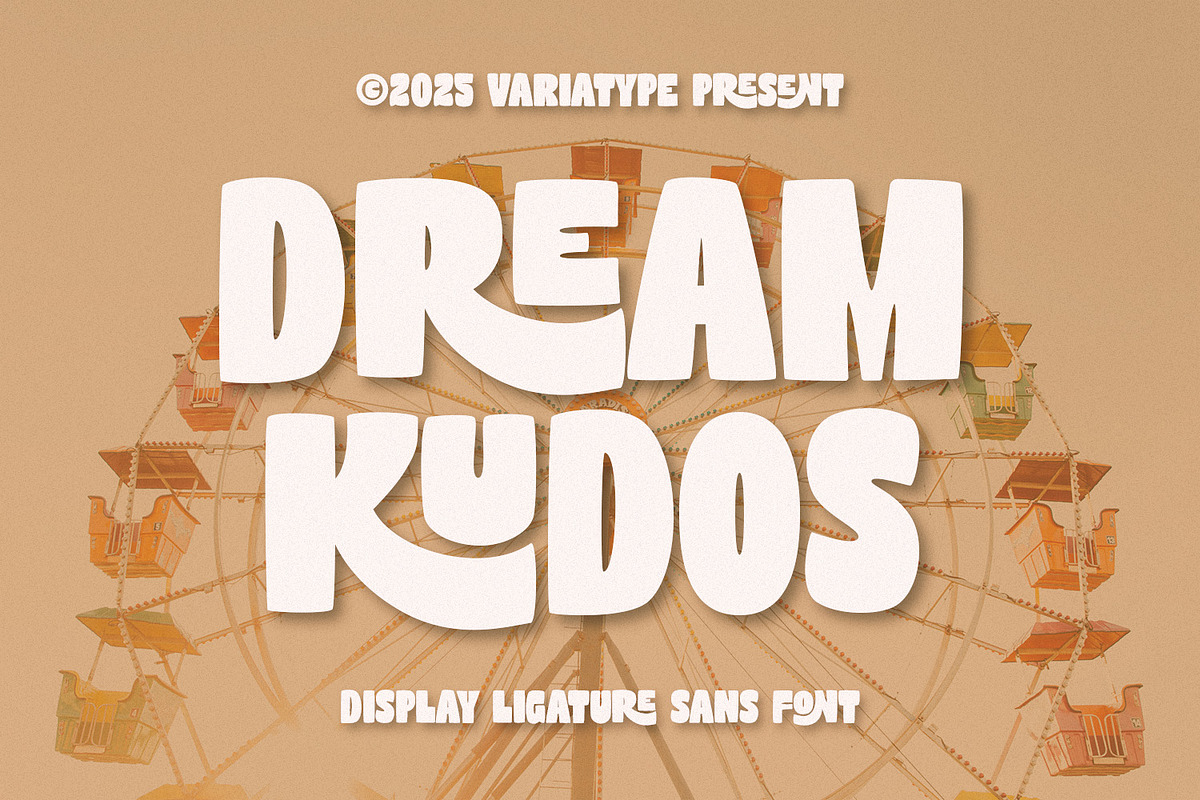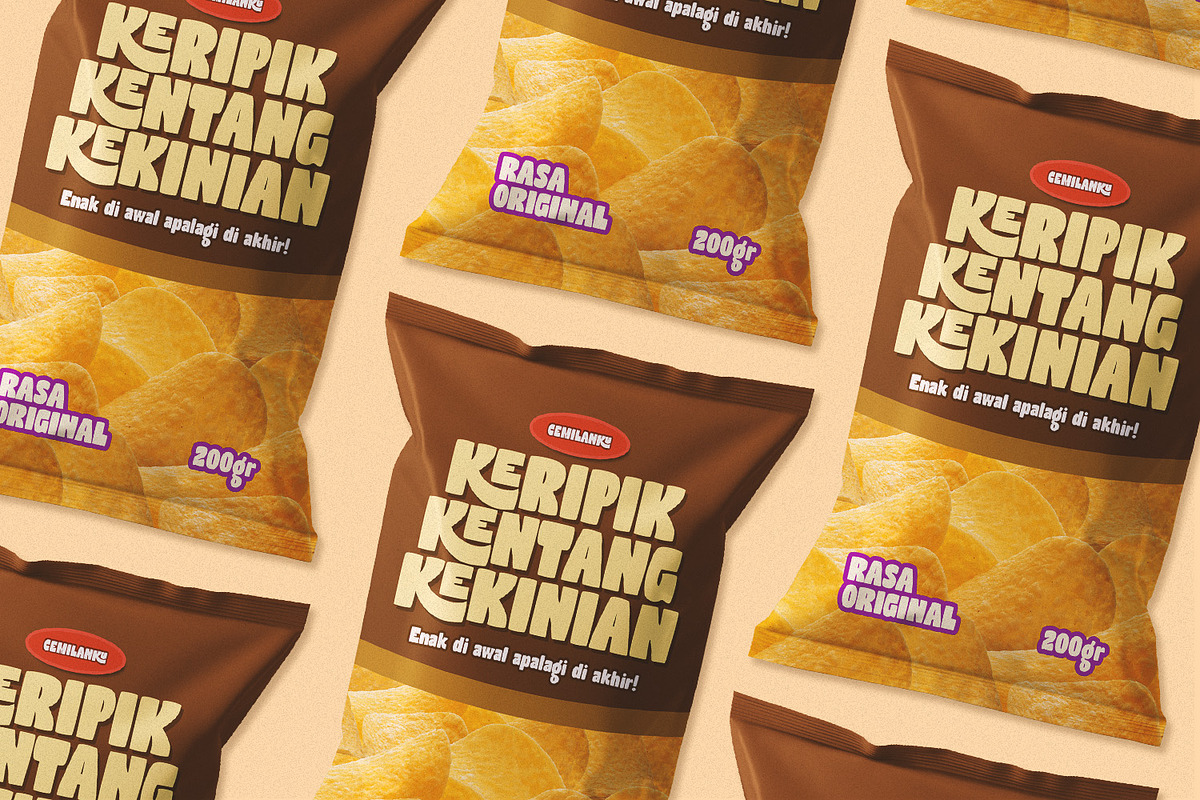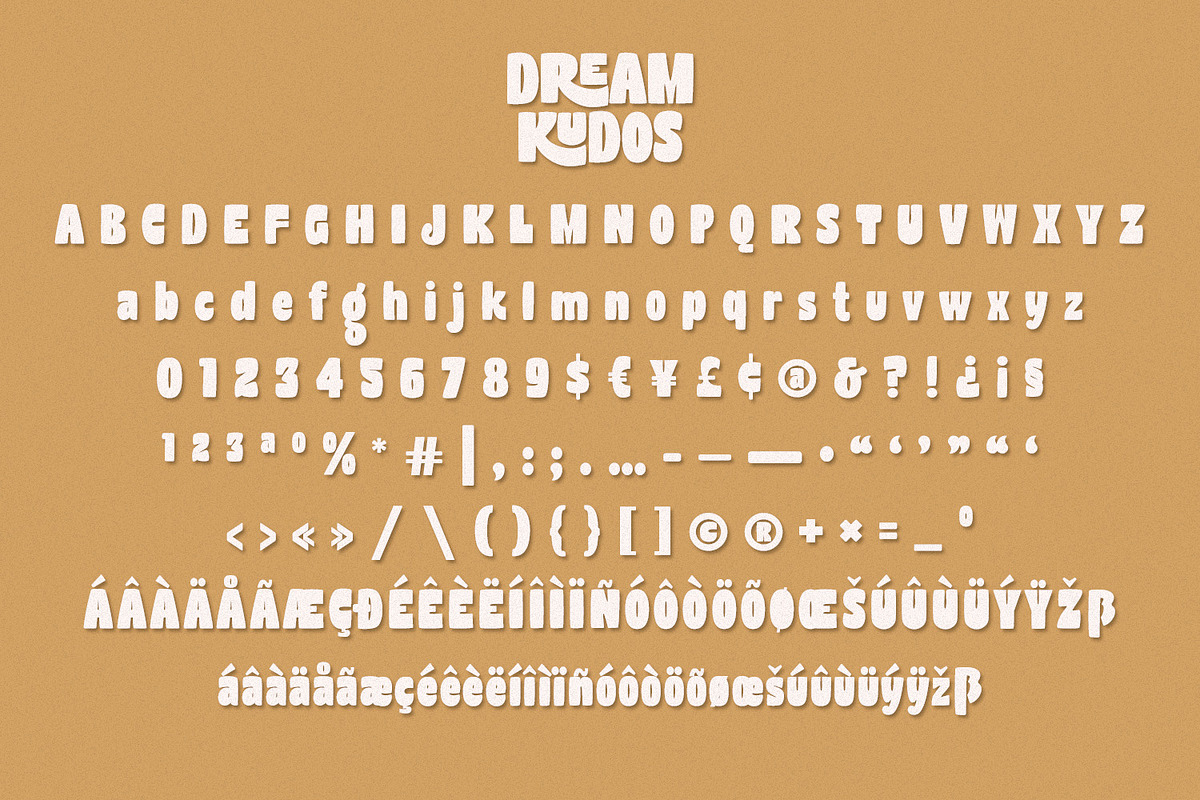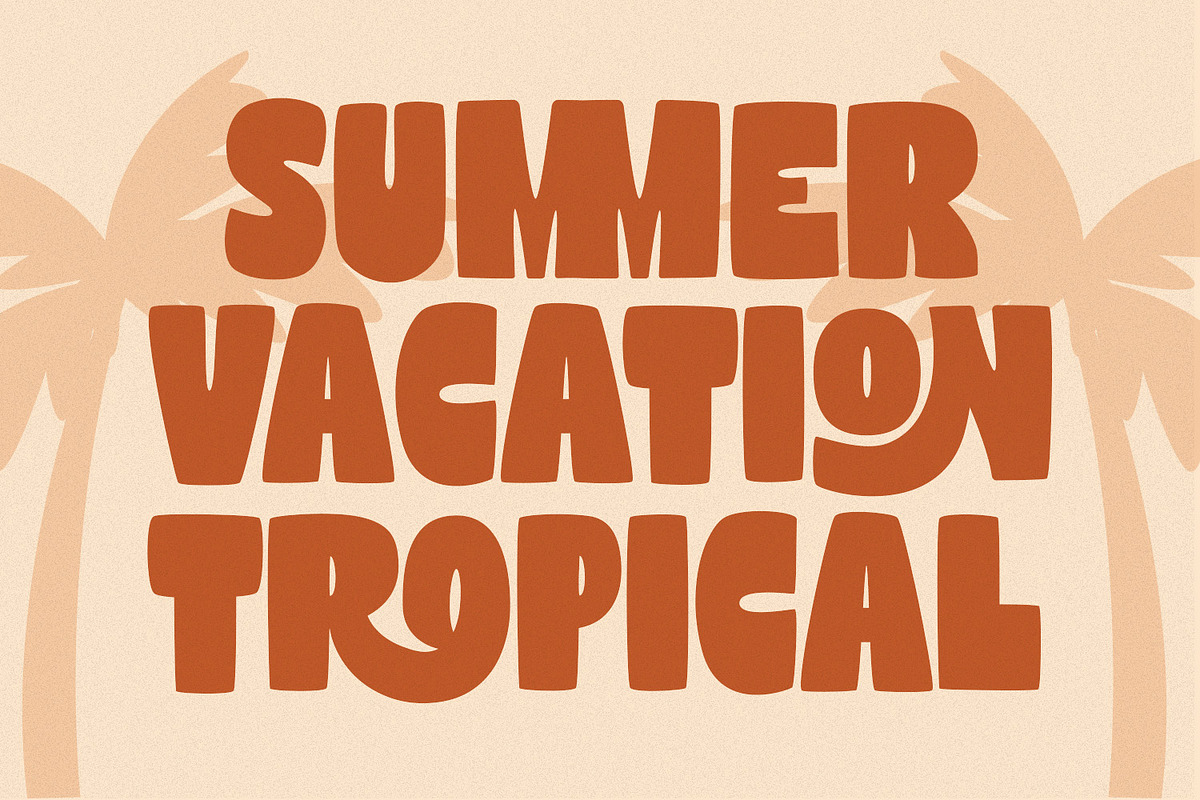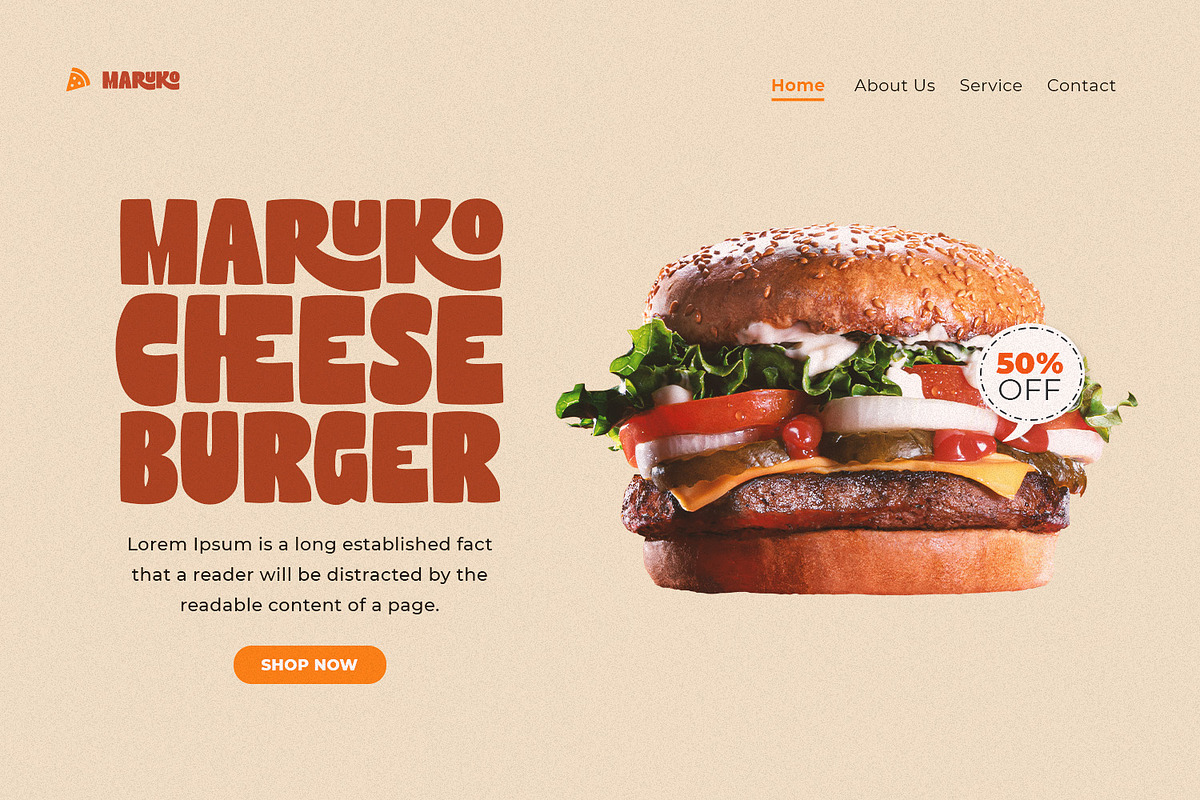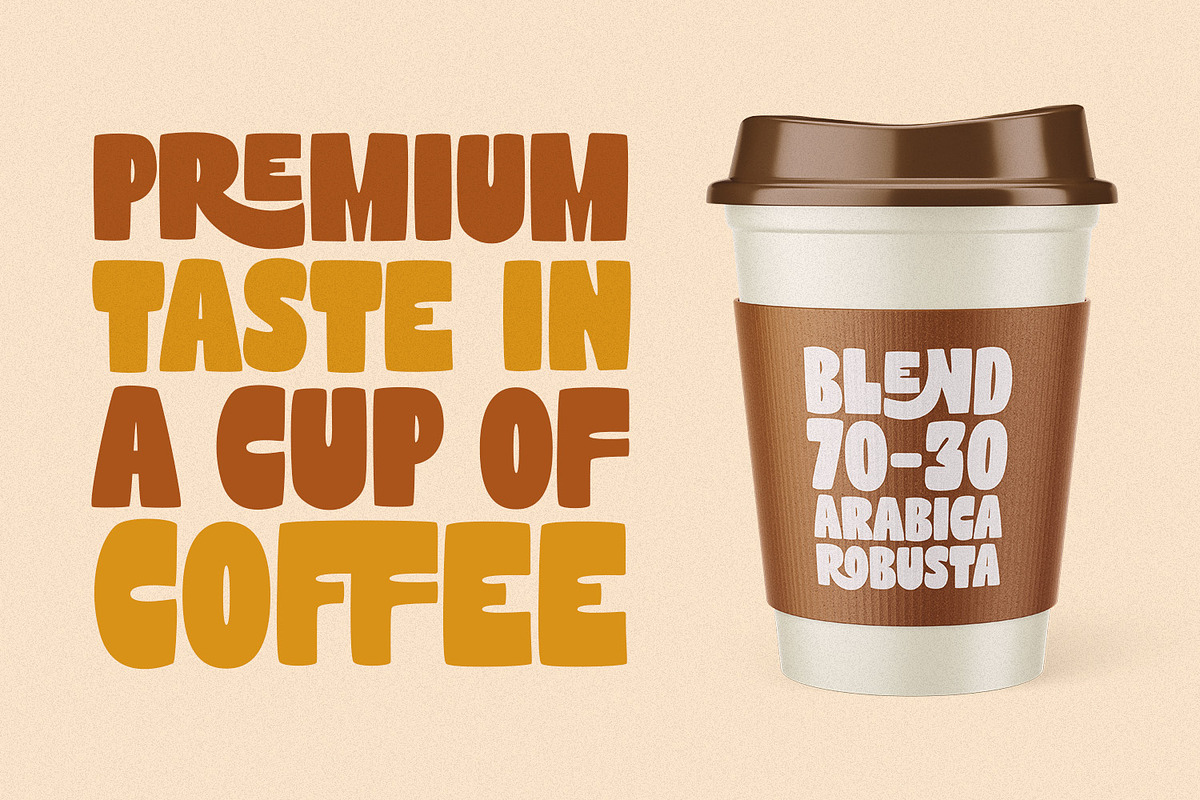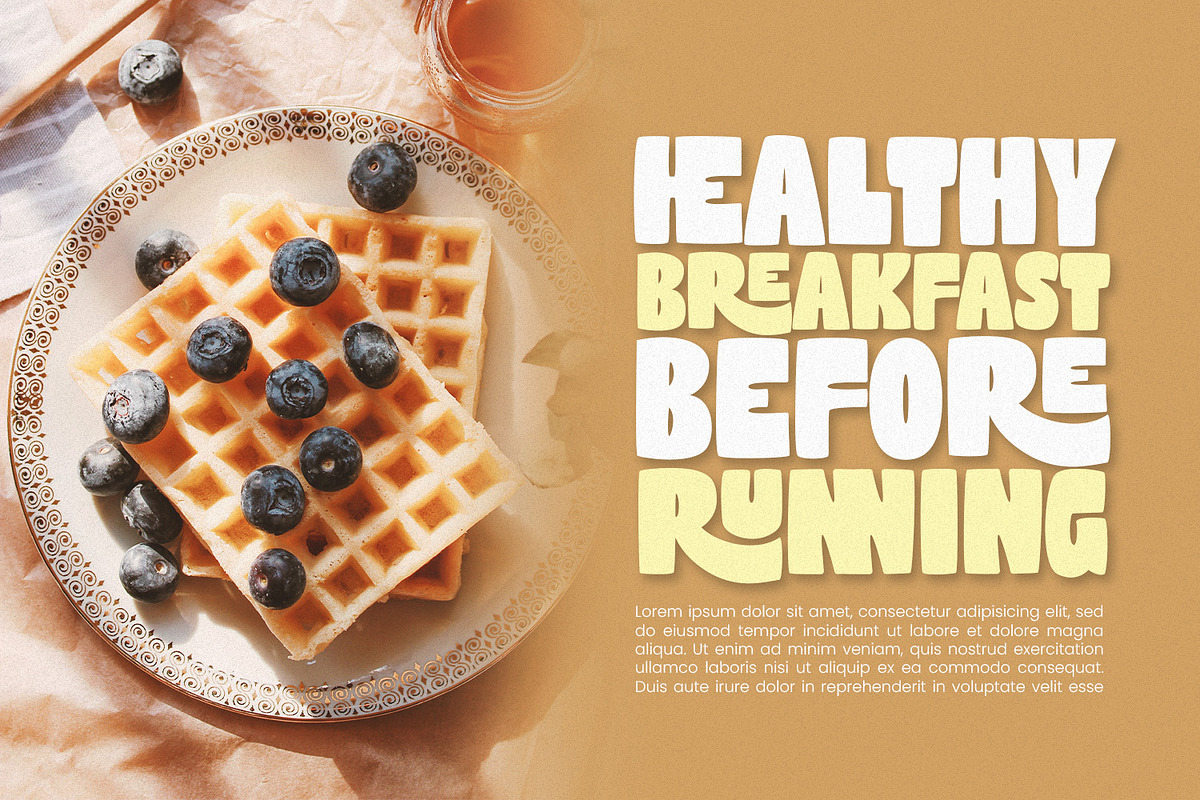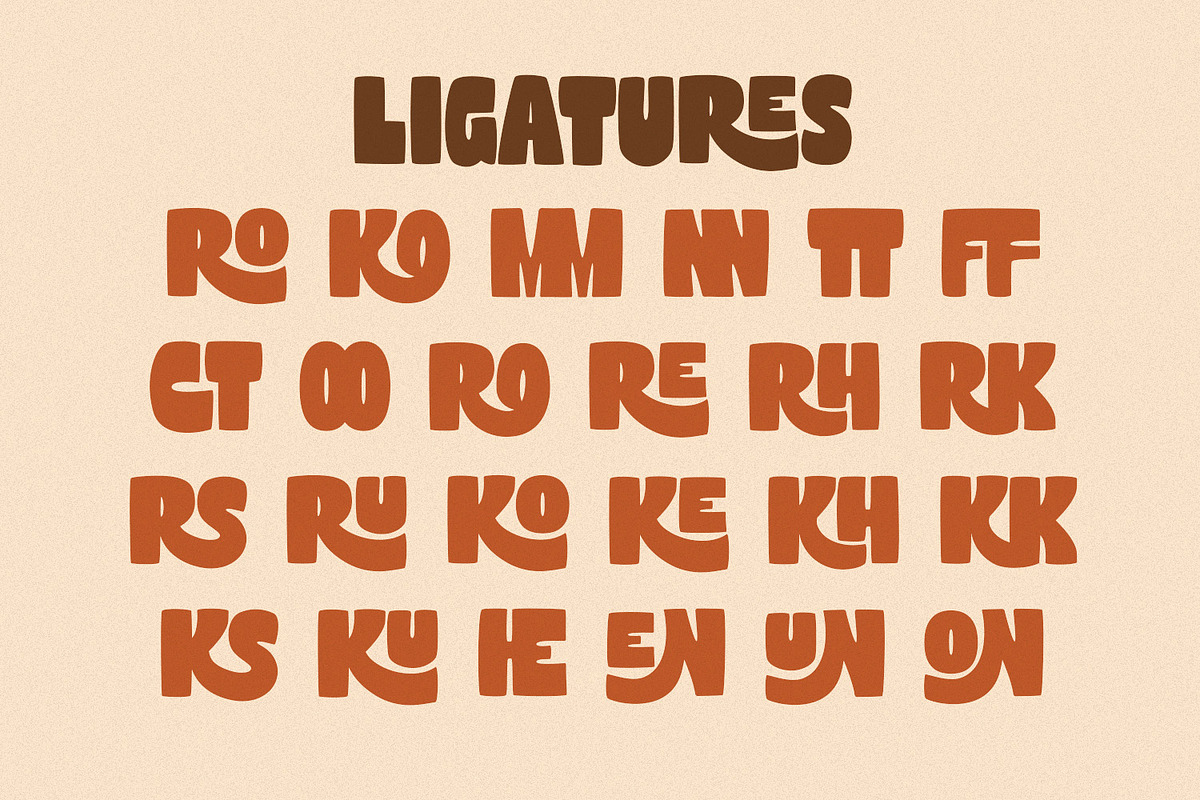
Dream Kudos - Display Ligature Sans
Dream Kudos is a fun, chunky display sans font inspired by tropical vibes, summer vibes, and a playful retro spirit. With its soft curves and unique ligatures, this font brings a warm, joyful personality to any design. Perfect for playful branding, posters, flyers, cheerful packaging, or creative headlines that need to stand out and be friendly. Bring nostalgic charm and good energy to your projects with Dream Kudos.